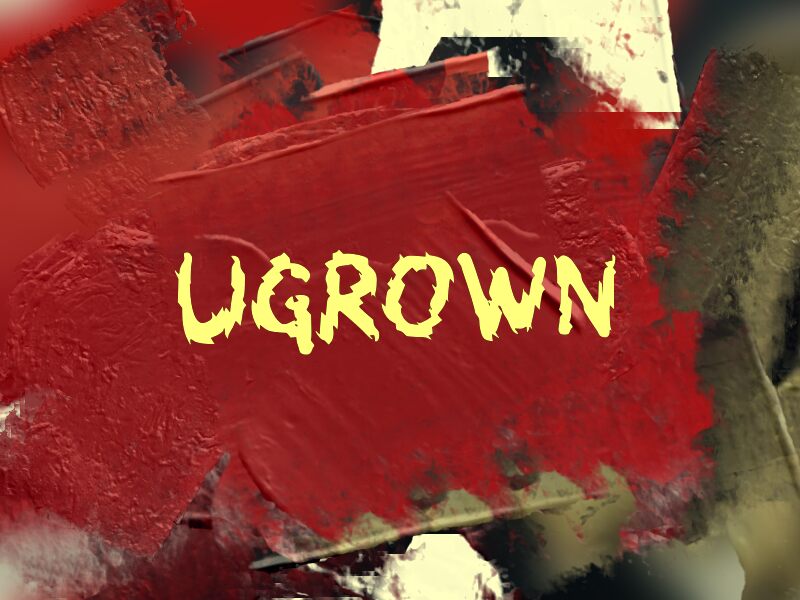
Ugrown by Wep is a free horror-distorted display font with the look of letters clawed from wet ink and left to fray at the edges. The caps feel raw and animated, with thick brushy strokes, torn contours, and irregular spikes that make the whole font read like a punk poster or late-night creature feature title.
That makes it a strong fit for horror posters, game splash screens, zine covers, Halloween event graphics, and band merch where a free font needs more bite than polish. It also works well in short headline settings, title cards, and rough monograms, because the jagged silhouette does most of the talking before any detail has time to matter.